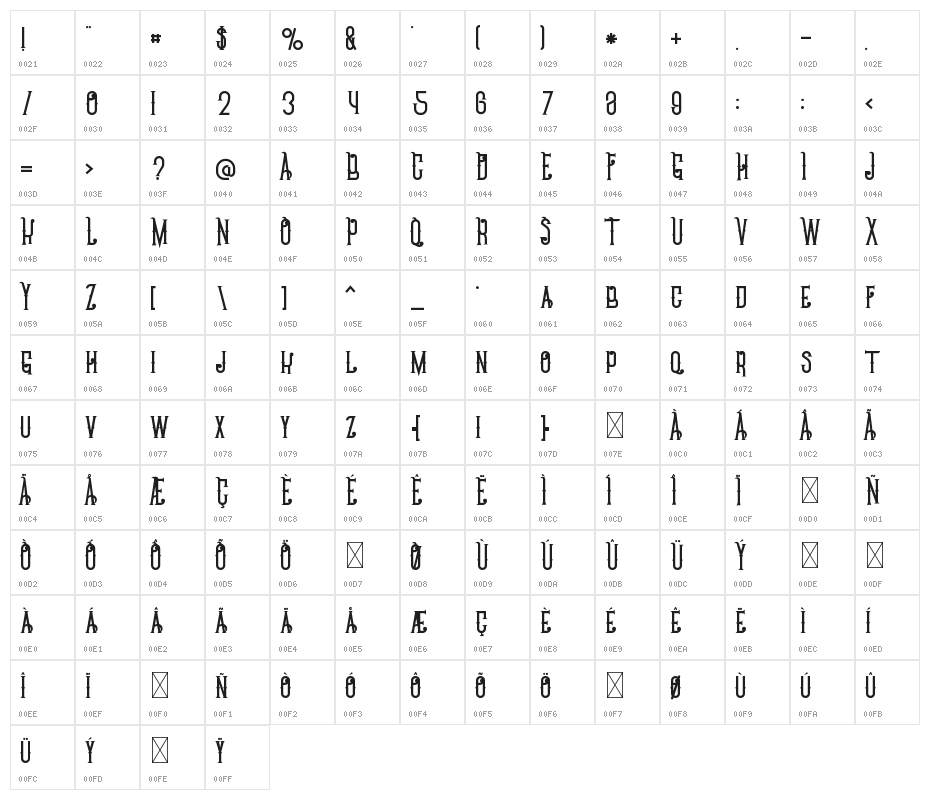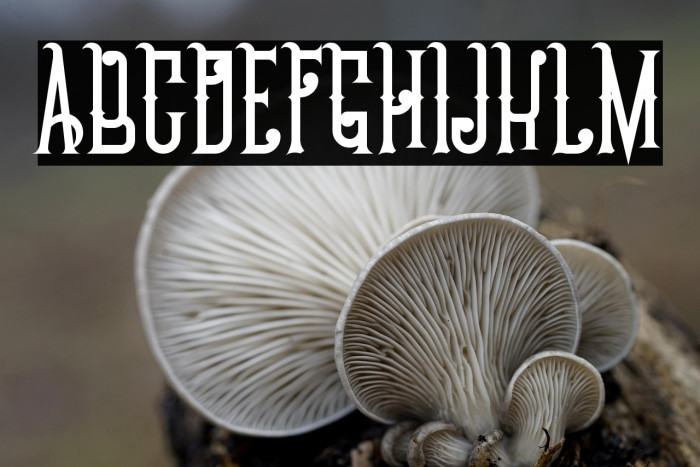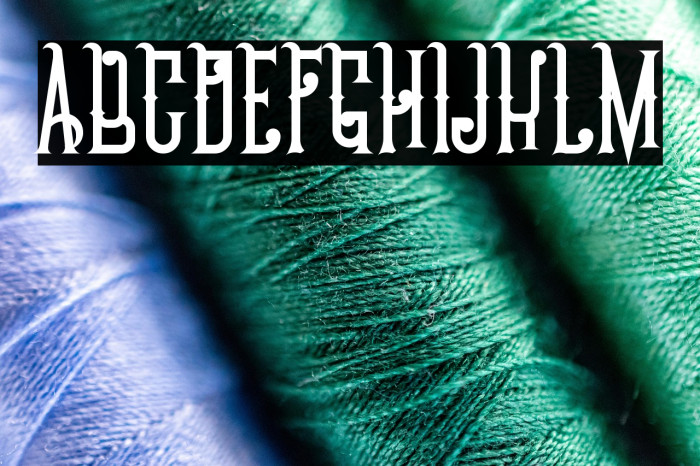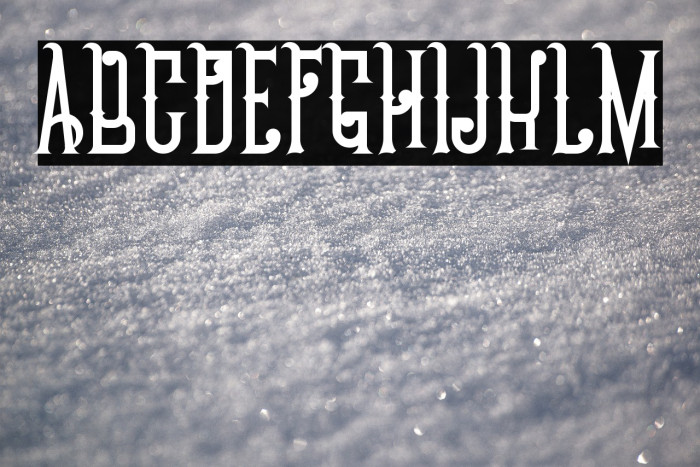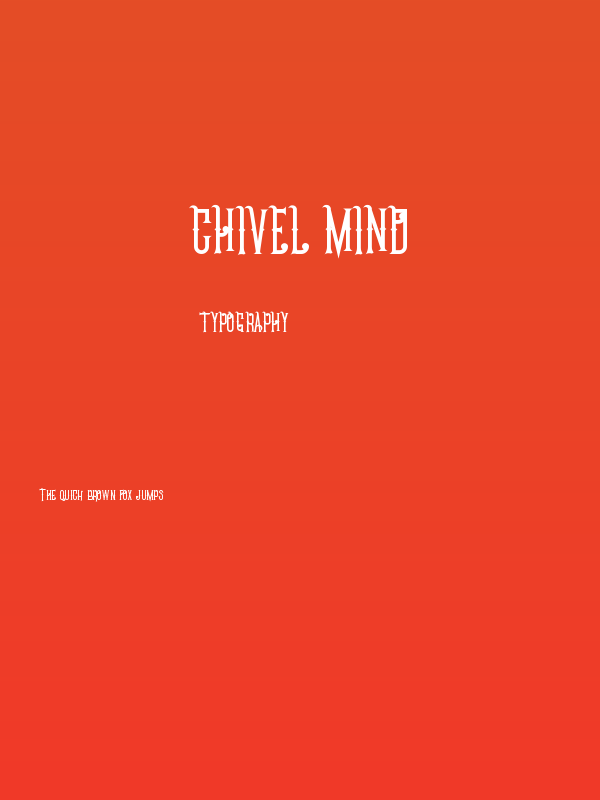
Chivel Mind Font
Chivel Mind Description
This font features a bold and decorative style with a distinct vintage flair. The characters are elongated with sharp, pointed serifs and intricate detailing that gives it a unique and ornate appearance. The uppercase and lowercase letters maintain a consistent height, contributing to a cohesive look. The numbers and special characters are equally stylized, ensuring uniformity across all elements. This font's intricate design makes it stand out, ideal for projects that require a touch of elegance and historical charm.
| Overall Style | Vintage, Decorative |
| Use Case | Headlines, Logos, Decorative text |
| Proposed Projects | Ideal for vintage-themed posters, branding, logos, and decorative headings. |